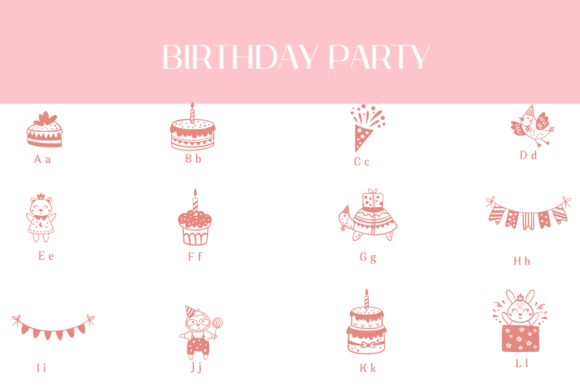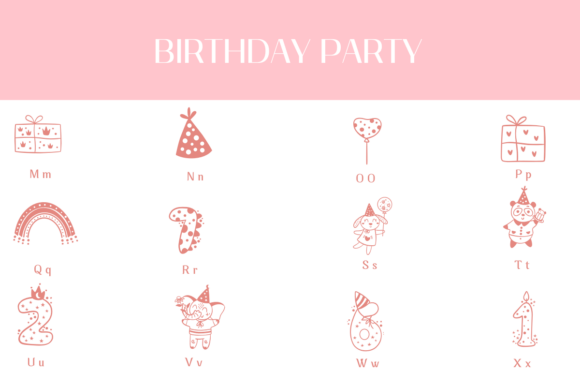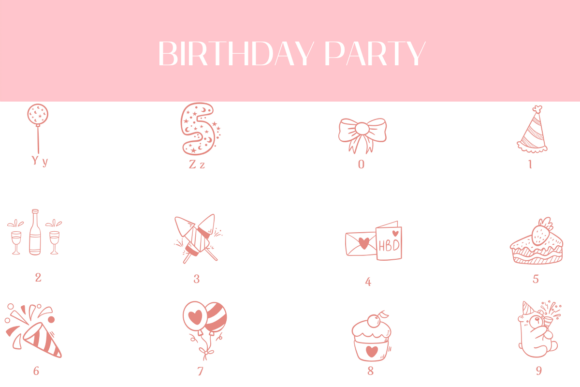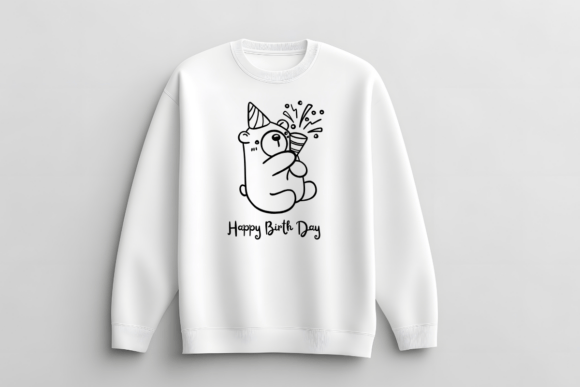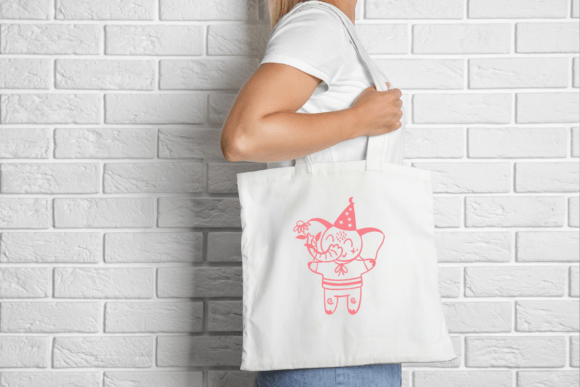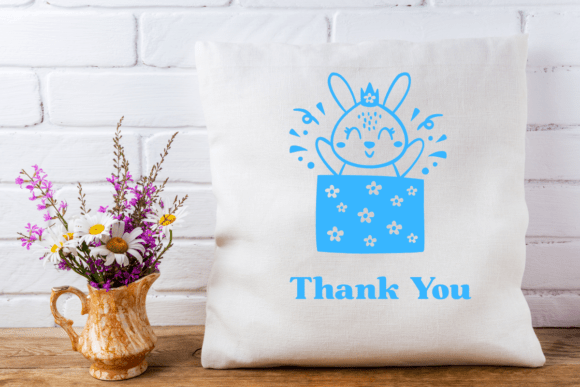
Birthday Party Font: Add a Touch of Whimsy to Your Designs
Are you looking for a font that can add a dash of fun and excitement to your creative projects? Look no further than the Birthday Party font! This delightful dingbats font is perfect for designers and crafters who want to bring a touch of whimsy to their work. In this article, we’ll take a closer look at the Birthday Party font, its features, and how you can use it to take your designs to the next level.
What is the Birthday Party Font?
The Birthday Party font is a unique and playful dingbats font that features a wide range of fun and colorful symbols, icons, and characters. From birthday cakes and balloons to confetti and party hats, this font has everything you need to create festive and engaging designs. Whether you’re working on a birthday invitation, a party flyer, or a social media graphic, the Birthday Party font is sure to add a touch of excitement and energy to your project.
Key Features of the Birthday Party Font
So, what makes the Birthday Party font so special? Here are just a few of its key features:
- Fun and playful design: The Birthday Party font features a wide range of fun and playful symbols, icons, and characters that are perfect for adding a touch of whimsy to your designs.
- Dingbats font: As a dingbats font, the Birthday Party font features a unique and eclectic mix of symbols, icons, and characters that can be used to add visual interest to your designs.
- Easily customizable: The Birthday Party font is easy to customize, allowing you to adjust the size, color, and style to suit your design needs.
- Perfect for party-themed designs: Whether you’re working on a birthday invitation, a party flyer, or a social media graphic, the Birthday Party font is perfect for creating festive and engaging designs.
How to Use the Birthday Party Font
Using the Birthday Party font is easy! Here are a few tips to get you started:
- Pair it with a bold font: For a bold and eye-catching look, pair the Birthday Party font with a bold font, such as a sans-serif font or a script font.
- Use it for headings and titles: The Birthday Party font is perfect for headings and titles, where you want to add a touch of whimsy and visual interest to your design.
- Add it to your party-themed designs: Whether you’re working on a birthday invitation, a party flyer, or a social media graphic, the Birthday Party font is perfect for adding a touch of festivity and excitement to your design.
Benefits of Using the Birthday Party Font
So, why should you use the Birthday Party font in your designs? Here are just a few benefits:
- Adds a touch of whimsy: The Birthday Party font adds a touch of whimsy and playfulness to your designs, making them more engaging and fun.
- Perfect for party-themed designs: The Birthday Party font is perfect for party-themed designs, such as birthday invitations, party flyers, and social media graphics.
- Easily customizable: The Birthday Party font is easy to customize, allowing you to adjust the size, color, and style to suit your design needs.
- Great for designers and crafters: The Birthday Party font is perfect for designers and crafters who want to add a touch of fun and excitement to their creative projects.
In conclusion, the Birthday Party font is a fun and playful dingbats font that’s perfect for adding a touch of whimsy to your designs. With its wide range of fun and colorful symbols, icons, and characters, this font is perfect for party-themed designs, such as birthday invitations, party flyers, and social media graphics. Whether you’re a designer or a crafter, the Birthday Party font is sure to bring a smile to your face and add a touch of excitement to your creative projects. So why not give it a try and see the results for yourself?
Birthday Party is a fun and cute dingbats font. Add it to your creative projects and enjoy the results!